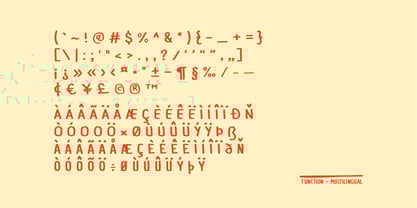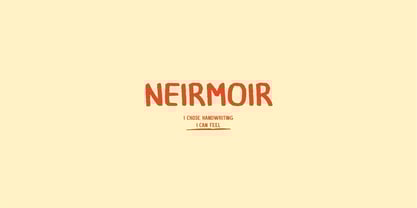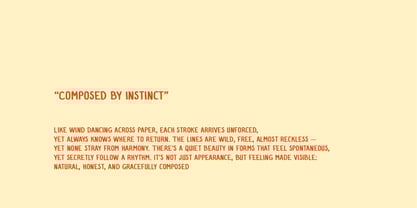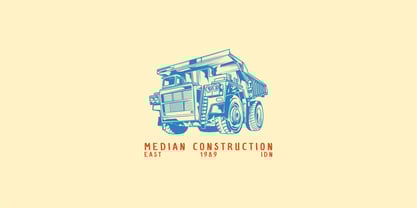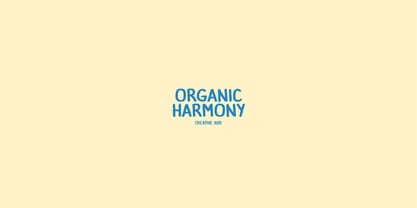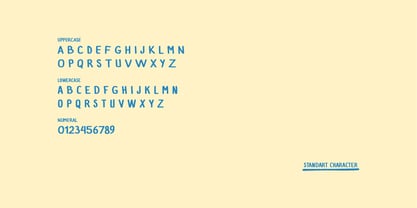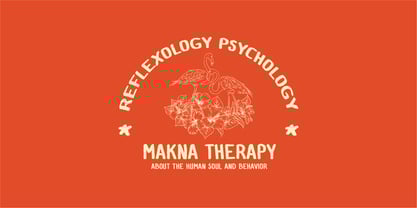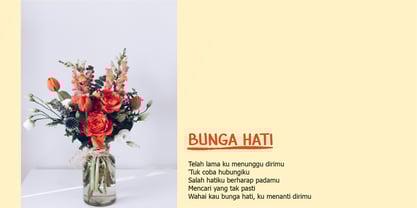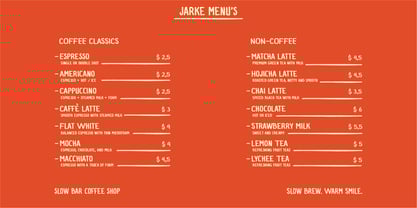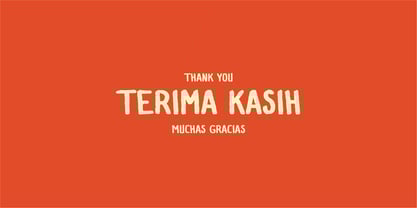
Neirmoir
by Nian Keun Studio
The Neirmoir Font Family was designed by Mugi Raharjo and published by Nian Keun Studio. Neirmoir contains 1 styles. More about this family
Neirmoir is a beautifully crafted handwritten font designed to bring a sense of warmth and authenticity to your creative projects. With smooth strokes and a balanced flow, Neirmoir feels like real handwriting while maintaining excellent readability.
This font is perfect for branding, wedding invitations, social media graphics, packaging, posters, and any design that needs a personal and approachable feel. Whether you’re creating elegant quotes, Instagram posts, or lifestyle products, Neirmoir adds a natural touch to your work.
✔ Regular handwritten style
✔ Perfect for branding and social media
✔ High readability with a natural look
Make your designs stand out with Neirmoir – a font that feels personal, modern, and timeless.
Designers: Mugi Raharjo
Foundry: Nian Keun Studio